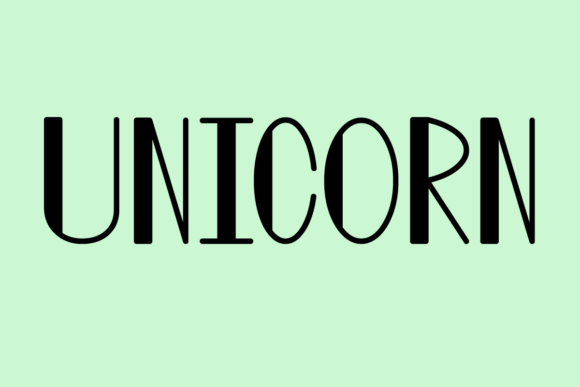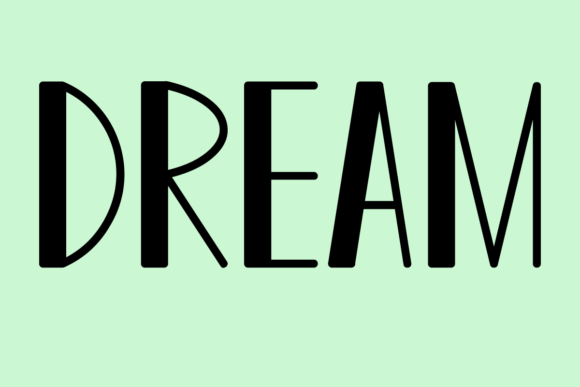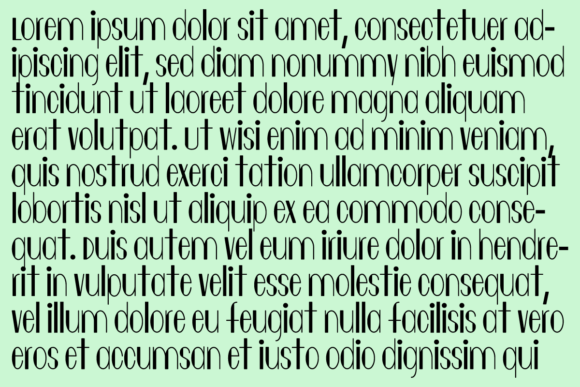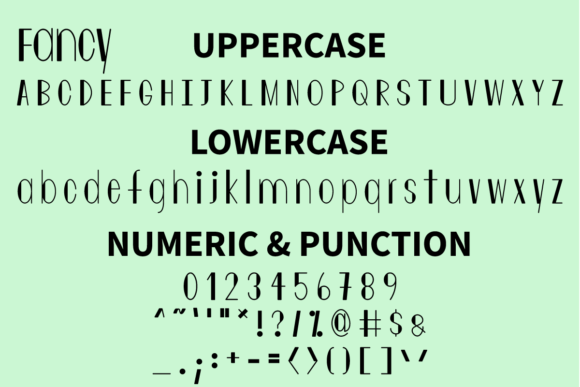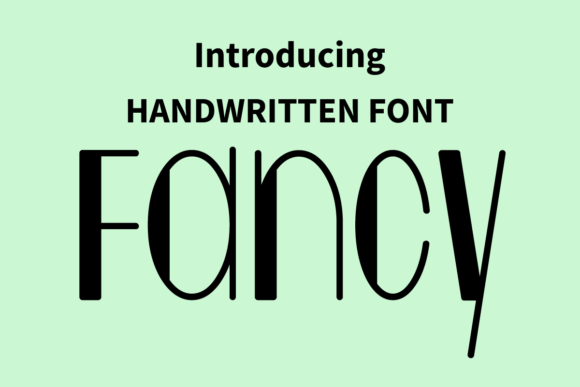
Fancy Font: Elevate Your Designs with a Whimsical Touch
In the world of typography, a well-chosen font can make all the difference in transforming a design from ordinary to extraordinary. If you’re a designer or crafter looking to add a touch of personality to your projects, look no further than the Fancy Font. This simple and friendly handwritten display font is the perfect addition to your design arsenal, offering a whimsical and quirky flair that’s sure to brighten up any design.
The Characteristics of Fancy Font
Fancy Font is a beautifully crafted handwritten display font that exudes a sense of playfulness and charm. Its unique characteristics make it an excellent choice for a wide range of design applications. Here are a few key features that set Fancy Font apart:
- Whimsical and Quirky: Fancy Font has a distinctly whimsical and quirky feel, making it perfect for designers who want to add a touch of personality to their work.
- Handwritten Display Font: With its handwritten feel, Fancy Font is ideal for creating eye-catching headlines, titles, and captions that demand attention.
- Simple and Friendly: Despite its playful nature, Fancy Font remains simple and friendly, making it easy to read and understand.
Uses for Fancy Font
Fancy Font is an incredibly versatile typeface that can be used in a wide range of design applications. Here are some ideas to get you started:
- Logos: Create a memorable and eye-catching logo for your brand or business with Fancy Font.
- Wedding Invitations: Add a touch of elegance and whimsy to your wedding invitations with Fancy Font.
- Quotes: Use Fancy Font to create inspiring and visually appealing quotes for social media, posters, or flyers.
- Advertisements: Grab attention with Fancy Font in your advertisements, whether print or digital.
- Print: Use Fancy Font in your print designs, such as brochures, catalogs, or business cards, to add a touch of personality.
- Magazines: Add visual interest to your magazine layouts with Fancy Font.
Why Choose Fancy Font?
With so many fonts to choose from, why should you choose Fancy Font for your design projects? Here are a few compelling reasons:
- Unique and Eye-Catching: Fancy Font is a one-of-a-kind typeface that’s sure to grab attention and leave a lasting impression.
- Easy to Read: Despite its playful nature, Fancy Font remains easy to read and understand, making it perfect for body text and captions.
- Versatile: Fancy Font can be used in a wide range of design applications, from logos and wedding invitations to quotes and advertisements.
- Confidently Add it to Your Projects: With Fancy Font, you can confidently add a touch of personality to your designs, knowing that it will elevate your work to the next level.
Tips for Using Fancy Font
To get the most out of Fancy Font, here are a few tips to keep in mind:
- Use it Sparingly: While Fancy Font is a beautiful typeface, it’s best used sparingly to avoid overwhelming your design.
- Pair it with Other Fonts: Experiment with pairing Fancy Font with other fonts to create a unique and visually appealing typography combination.
- Adjust the Size and Color: Play around with different sizes and colors to find the perfect combination for your design.
| Font Name | Fancy Font |
| Author | Woracado |
In conclusion, Fancy Font is a simple and friendly handwritten display font that’s perfect for designers and crafters looking to add a touch of whimsy and personality to their work. With its unique characteristics, versatility, and ease of use, Fancy Font is an excellent addition to any design arsenal. So why not give it a try and see the difference it can make in your designs?